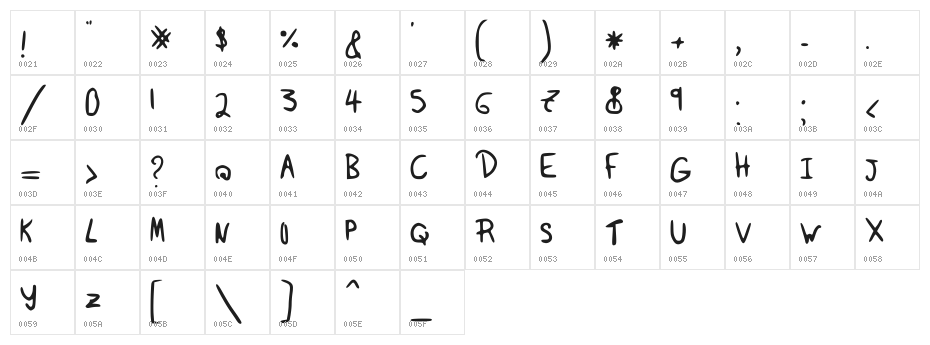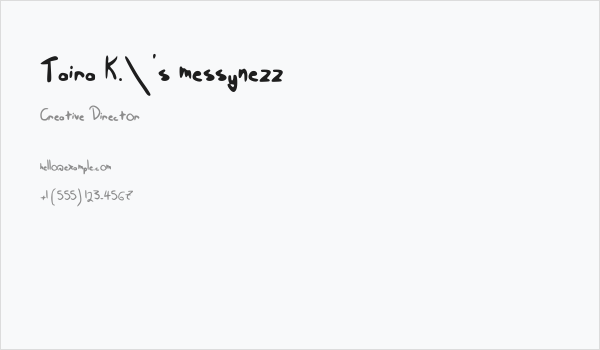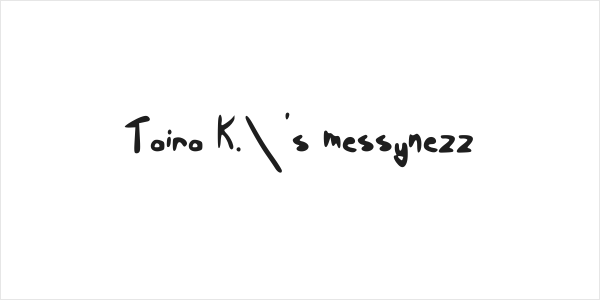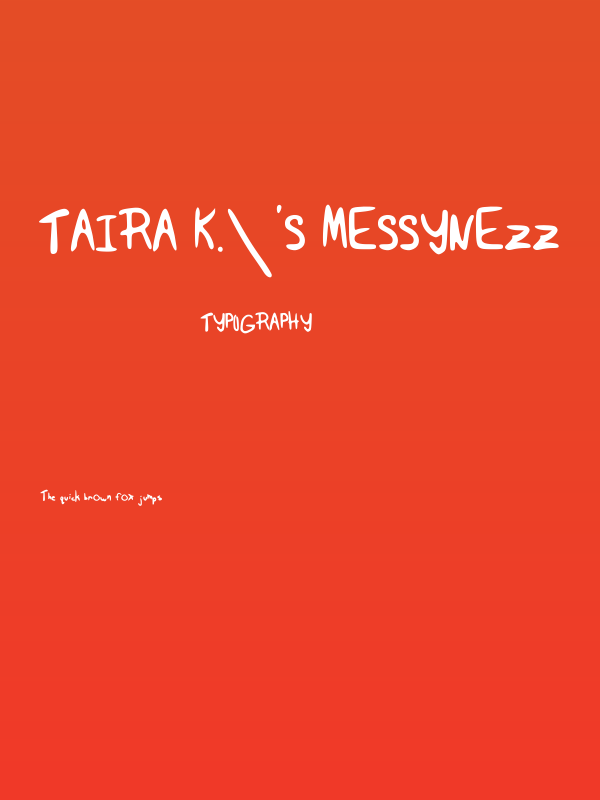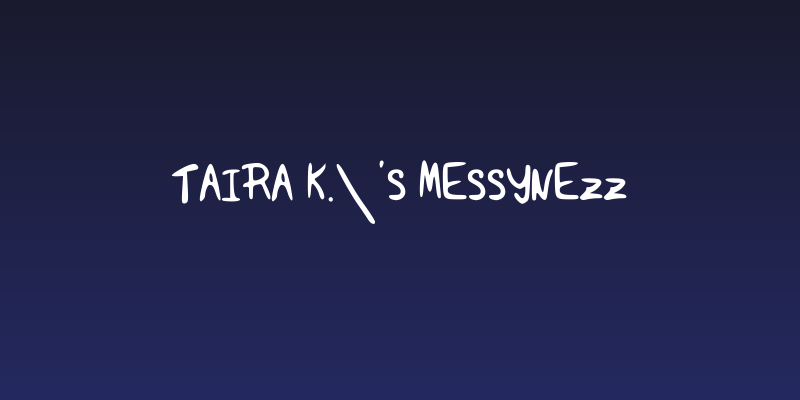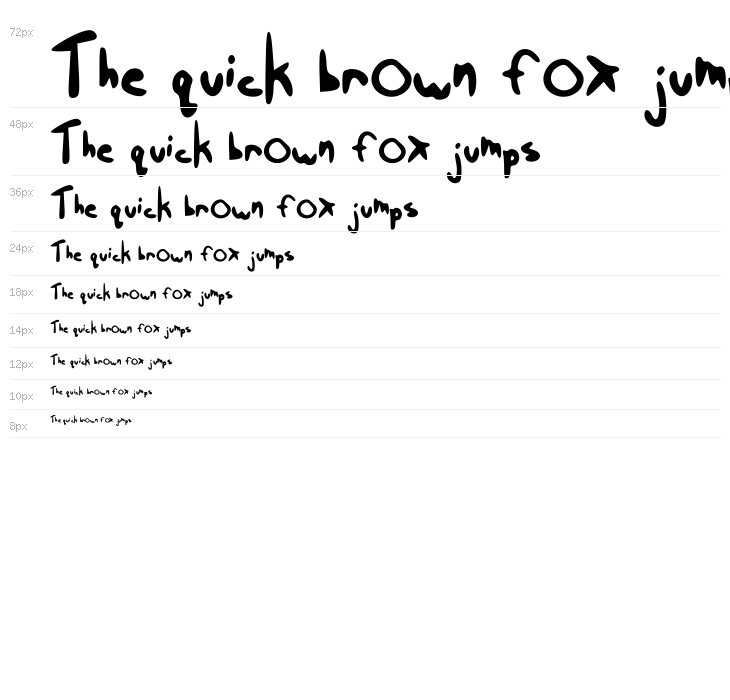
Taira K.'s messynezz Font
Taira K.'s messynezz Description
This font exudes a playful and casual vibe, characterized by its hand-drawn appearance. The letters are uneven and slightly irregular, giving it a whimsical and informal feel. The strokes are bold and rounded, with a consistent thickness that maintains readability while adding a touch of personality. The uppercase and lowercase letters maintain a cohesive style, with the lowercase letters being slightly more compact. Numbers and special characters follow the same playful design, making the font versatile for various creative projects. Its unique style is perfect for adding a personal touch to any design.
| Proposed Projects | Ideal for children's books, greeting cards, playful branding, and informal invitations. |